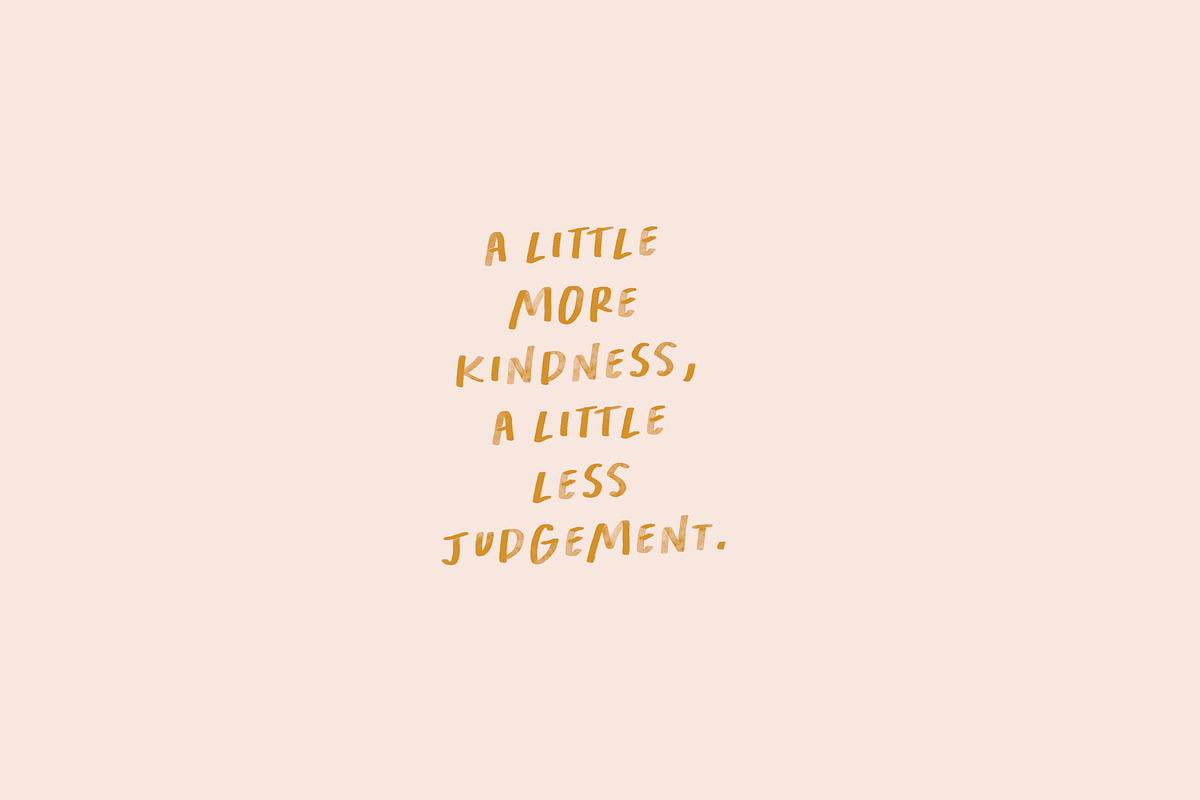
Kindness matters…it really does. Here is hoping that every time you use this font, it serves as a little reminder for you. Kindness Matters is a quirky All-caps SVG font – with built-in watercolour texture that looks so very real. Perfect for quotes, posters, flyers, social media posts and so much more.